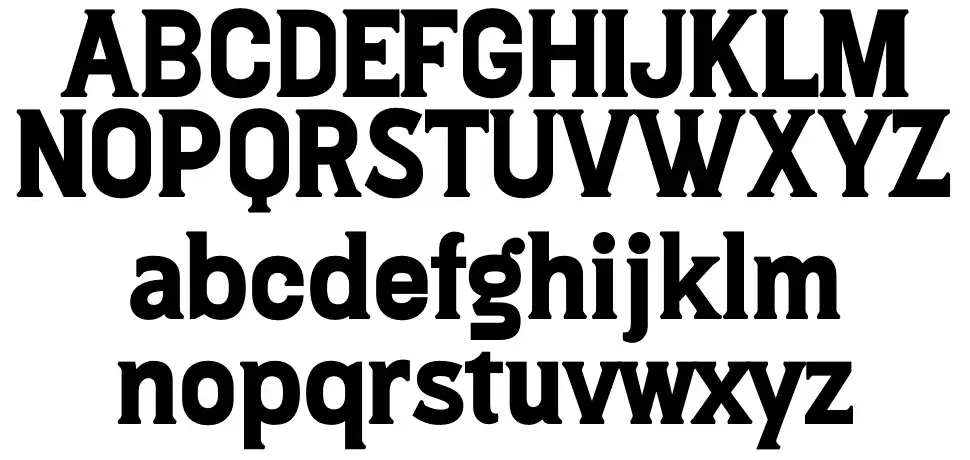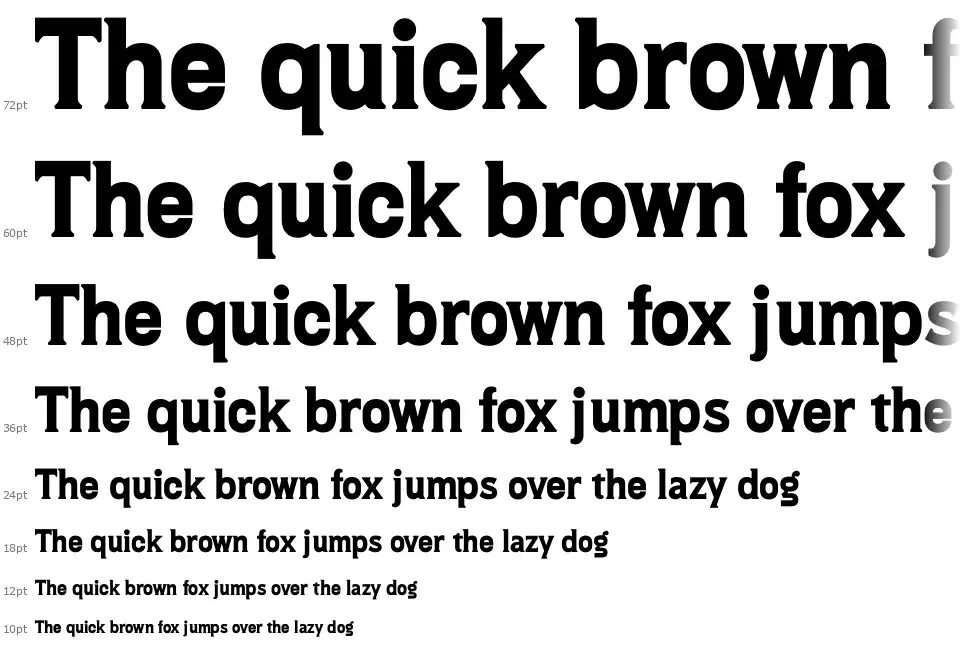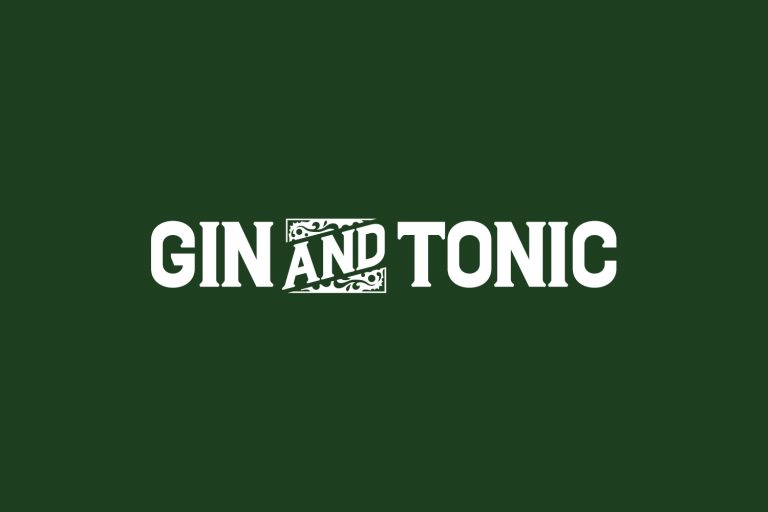
Gin And Tonic free font
Gin And Tonic Font Free [ Download Now ] Gin And Tonic Font Download Free download of gin and tonic font family with 4 styles. Click now to create a custom image with your own words that you can download. To purchase a commercial license, visit: Gin and tonic font download is available free from fontget. Gin and tonic is a fancy type font that can be used on any device such as pc,.. Gin And Tonic Font Download.
Gin And Tonic Font download free Gin And Tonic Font Download The type of lettering that could be seen in. Gin and tonic is a fancy type font that can be used on any device such as pc,. To purchase a commercial license, visit: Free download of gin and tonic font family with 4 styles. This font is for personal use only! Click now to create a custom image with your. Gin And Tonic Font Download.
Gin and Tonic Duo Font Free Download TMfonts Gin And Tonic Font Download To purchase a commercial license, visit: Gin and tonic is a fancy type font that can be used on any device such as pc,. The type of lettering that could be seen in. This font is for personal use only! Click now to create a custom image with your own words that you can download. Gin and tonic font download. Gin And Tonic Font Download.
Gin And Tonic Font Download The type of lettering that could be seen in. Click now to create a custom image with your own words that you can download. Gin and tonic is a fancy type font that can be used on any device such as pc,. This font is for personal use only! Gin and tonic font download is available free from fontget. Free. Gin And Tonic Font Download.